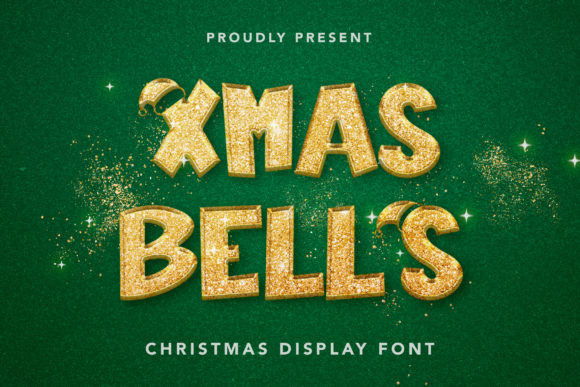
Prepare to be mesmerized by Xmas Bells Font, a captivating display font that exudes playfulness and exuberance! Crafted with bold, thick letters and an infectious spirit, this font is destined to leave an unforgettable impression on your creative projects.
Immerse yourself in the versatility of Xmas Bells Font. Its jolly nature effortlessly adapts to a myriad of applications, be it digital designs, presentations, or even handmade crafts. Unleash your creativity and let your imagination soar as you transform ordinary words into captivating works of art.
Picture this: You're designing a greeting card for a special occasion. The words "Happy Birthday" leap off the page in Xmas Bells Font, each letter adorned with a festive aura. The playful curves and cheerful strokes evoke a sense of joy and celebration, making the recipient's heart dance with delight.
Envision the impact of Xmas Bells Font in a captivating presentation. As you unveil your ideas, the font's bold presence commands attention, leaving a lasting impression on your audience. The thick strokes exude confidence, while the playful spirit adds a touch of charm, ensuring that your message resonates with your listeners.
Step into the realm of digital design and witness the transformative power of Xmas Bells Font. Its unique charm breathes life into logos, social media graphics, and website designs. The font's ability to convey emotions and create a lasting connection with your audience is simply magical.
The Xmas Bells Font is not merely a collection of letters; it's an expression of your creativity and a catalyst for unforgettable experiences. Whether you're a seasoned designer or just starting your creative journey, this font is the perfect companion to elevate your projects and make them shine.
With Xmas Bells Font, the possibilities are endless. Embrace its playful spirit, unleash your imagination, and create masterpieces that capture hearts and minds. Let the font's infectious energy ignite your passion and transform your creative visions into reality.